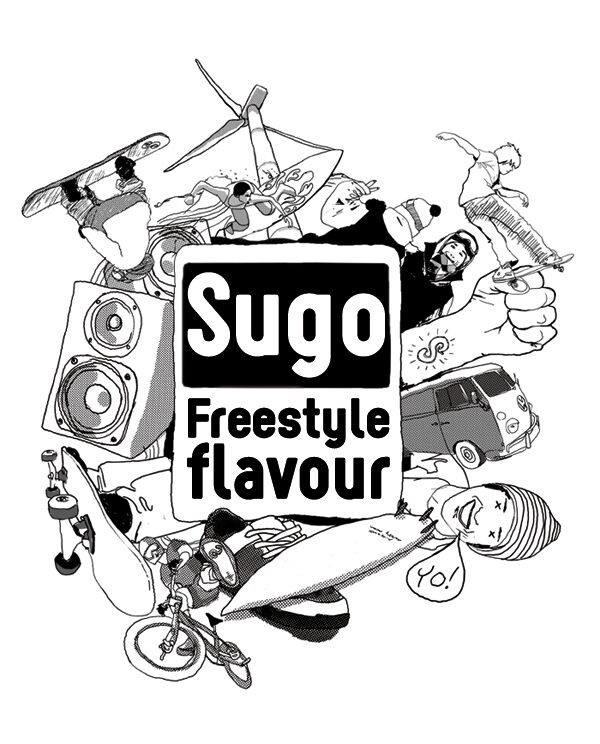
Sugo by Francesco Canovaro of Studio Kmzero is a free cartoon display font built from broad, rounded strokes and tightly fitted lowercase forms. Its soft corners and swollen curves make the lettering look sturdy and playful, with a few sharper cuts adding welcome bite.
It can turn a title into a compact, mascot-like block of lettering for snack packaging, toy branding, children's event posters, and casual game graphics. The repeated pill-shaped strokes and bulbous curves echo the simple shapes used in friendly character art.
Sugo is a headline font created for a skateboard shop logo.